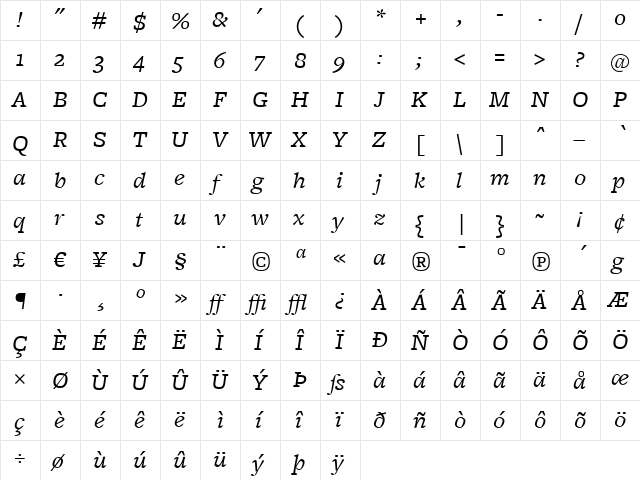
FreightMicro BookItalic Font Preview
FreightMicro BookItalic
Design Context for FreightMicro Typeface
FreightMicro is a composed and adaptable typeface that performs quietly and consistently across a wide range of design contexts. The slanted form adds forward momentum and visual energy.
Pro Tip: Try FreightMicro for annotation and caption copy alongside an upright companion — the contrast in angle creates a dynamic but ordered typographic system.